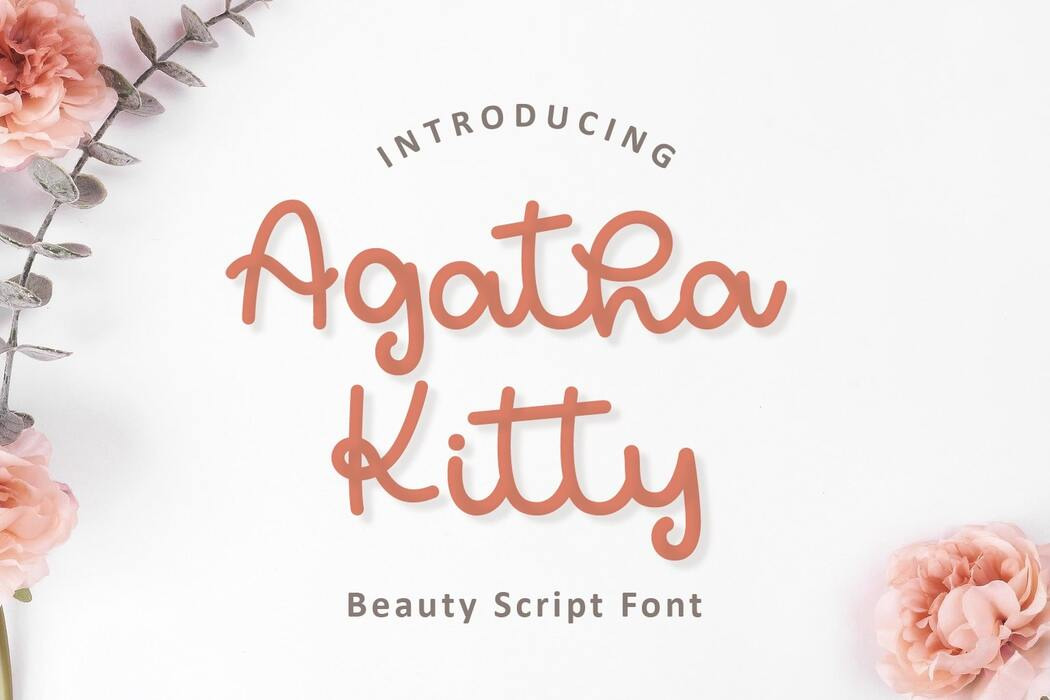
Agatha Kitty | Script Font
About the Product Agatha Kitty is a flowing handwriting. This font can be applied to non-printed products as well as printed products such as books, packaging, clothing, captions and other branding purposes etc. Thanks for checking out my shop, and feel free to get in touch! suntype07@gmail.com